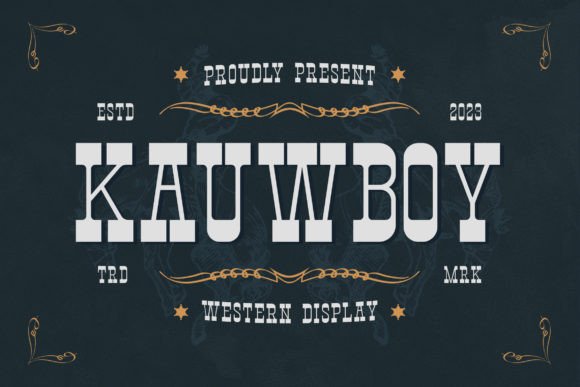
Introducing the "Kauwboy" font family. With its striking Western-inspired designs, this display font captivates the rugged charm of the frontier. Each letter exudes a vintage-style, evoking the essence of dusty saloons and wide-open landscapes, giving your projects an authentic and enchanting touch.
Immerse your designs in the spirit of the Wild West with "Kauwboy." This font is the ideal partner for crafting posters that evoke the excitement of a rodeo, designing logos that capture the essence of cowboy culture, or creating adventurous branding materials that transport your audience to the heart of the frontier.
Unleash your imagination and explore the limitless possibilities of "Kauwboy." Its versatility extends beyond traditional Western themes, making it a captivating choice for signage, packaging, and any project seeking a touch of old-fashioned charm.
With its intricate details and bold letterforms, "Kauwboy" brings a unique and distinctive character to your designs. Stand out from the ordinary and embrace the spirit of the frontier with "Kauwboy" today.